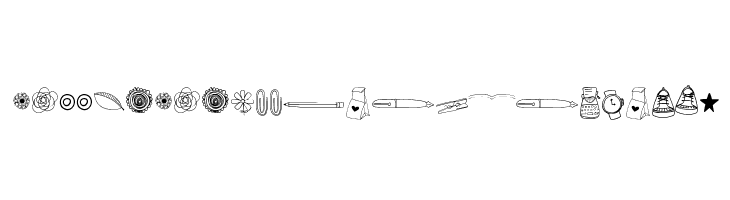
A decorative floral dingbat set with varied flower and plant motifs.
A playful collection of dingbats featuring childlike drawings and decorative elements.
Hand-drawn floral dingbat font with unique flower illustrations.